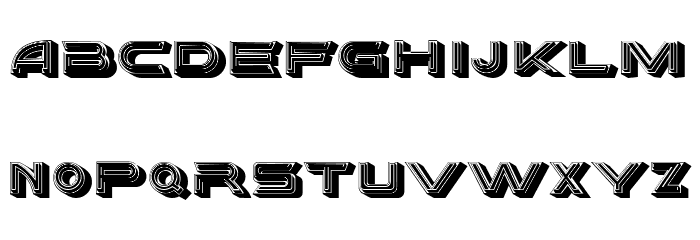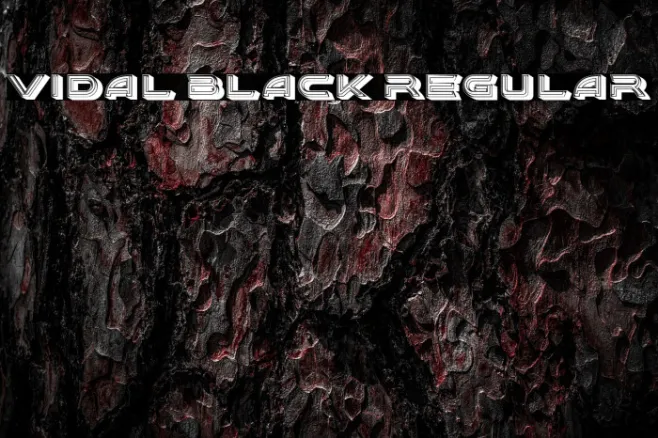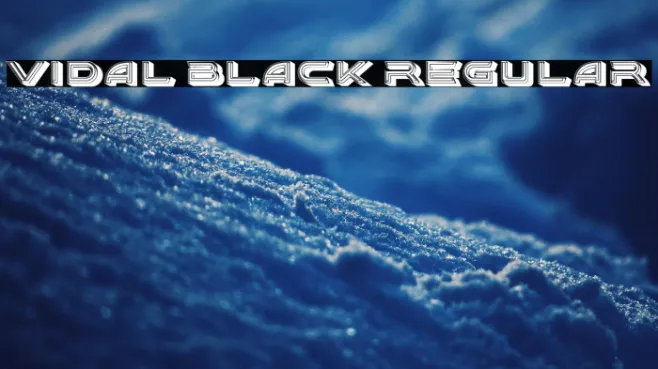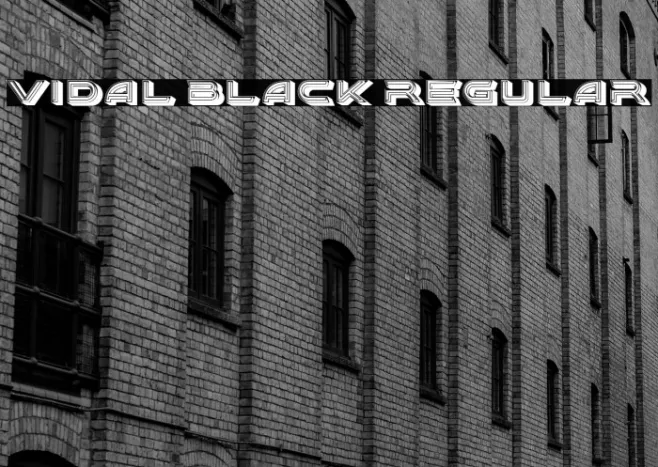
Vidal Black Regular Font
This font features a bold, geometric design with a three-dimensional effect. The characters are constructed with thick, angular lines and a shadowed outline that gives them a striking, layered appearance. The uppercase letters are particularly prominent, with a strong presence that commands attention. The overall aesthetic is modern and dynamic, making it suitable for projects that require a bold statement. The font's unique style is characterized by its intricate detailing and the interplay of light and shadow, which adds depth and dimension to the text.
A bold, geometric font with a three-dimensional, shadowed design.
- Font: Vidal Black Regular
- Proposed Projects: Ideal for posters, headlines, logos, and branding materials that require a bold and modern look.